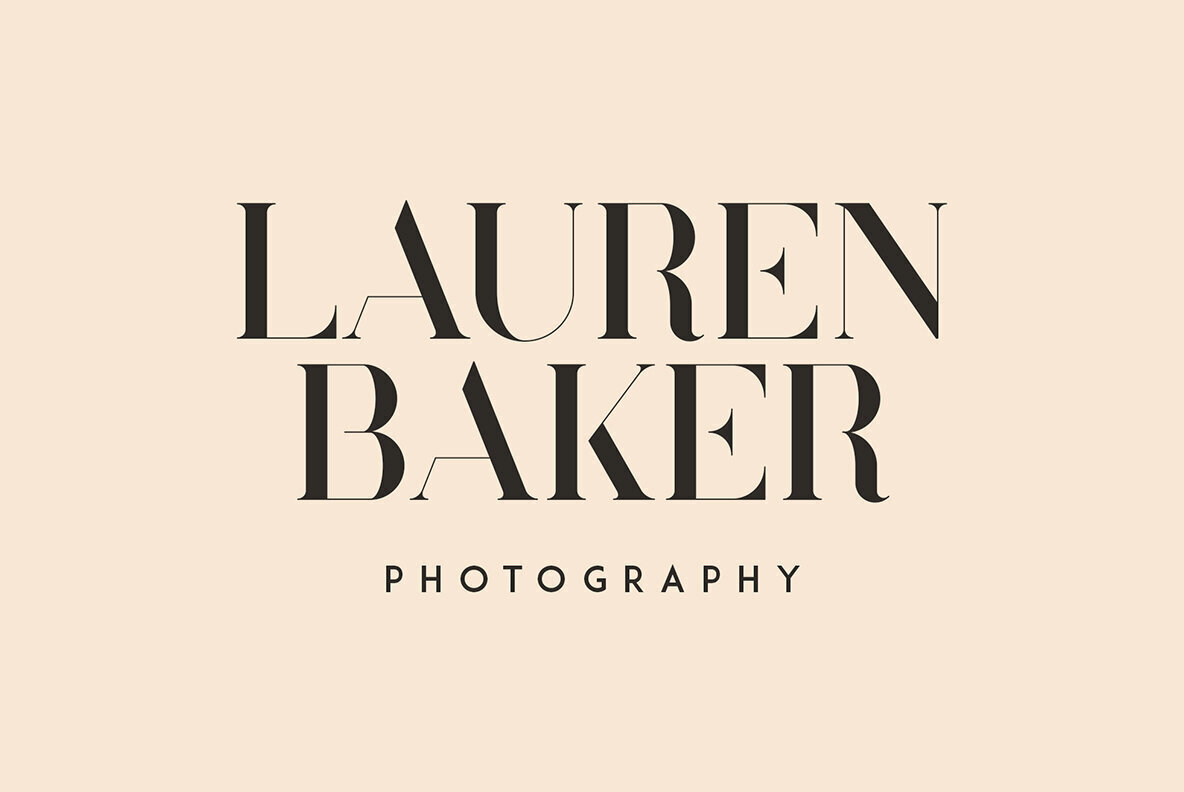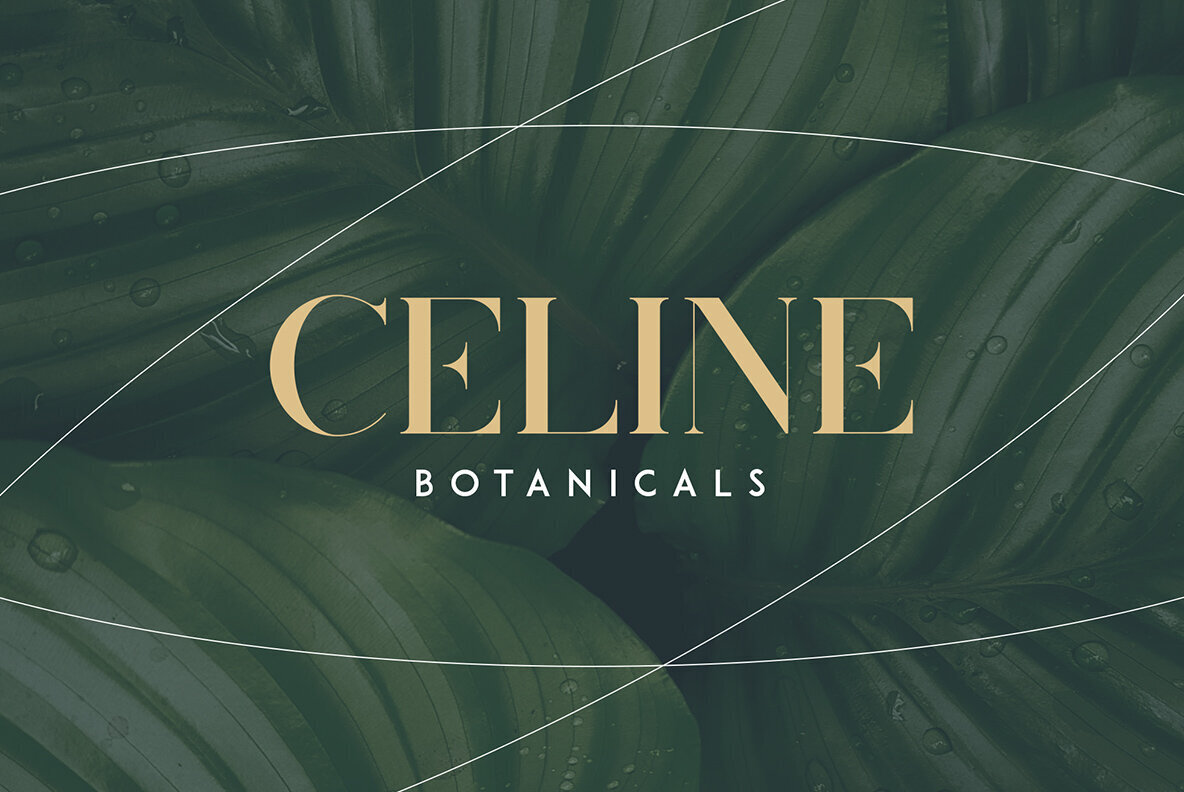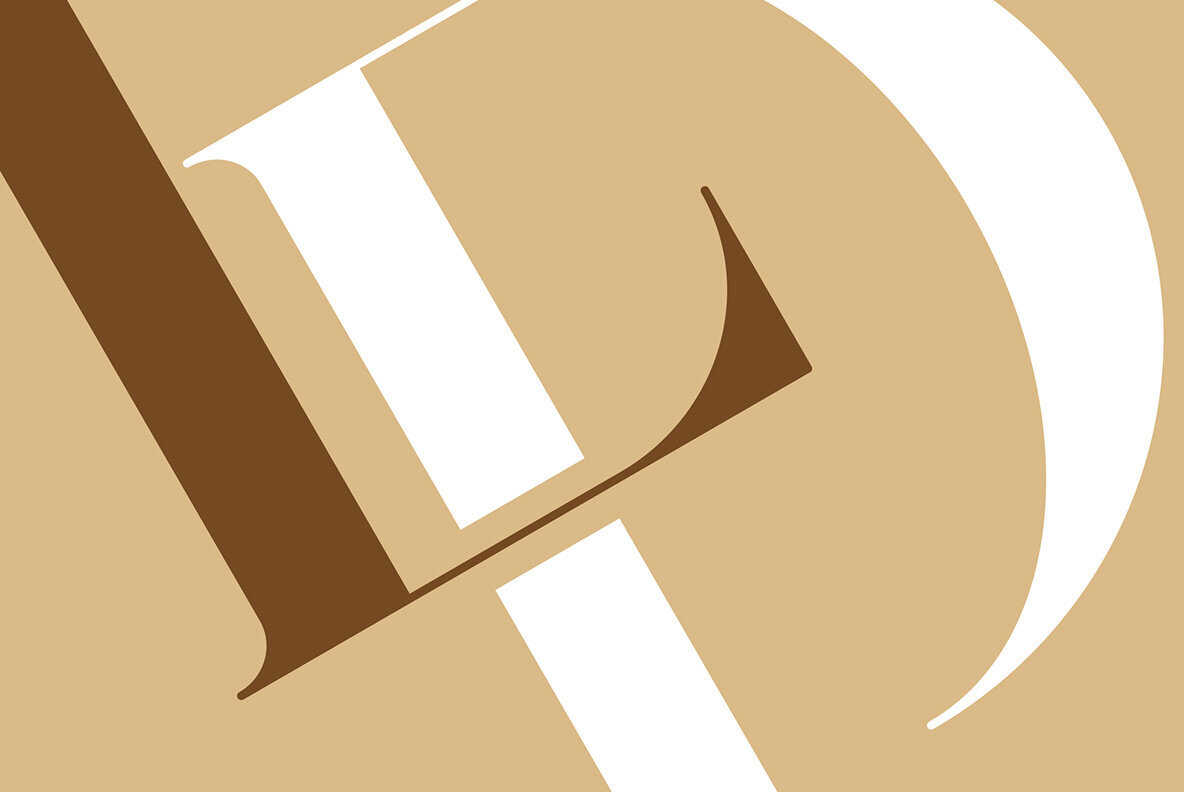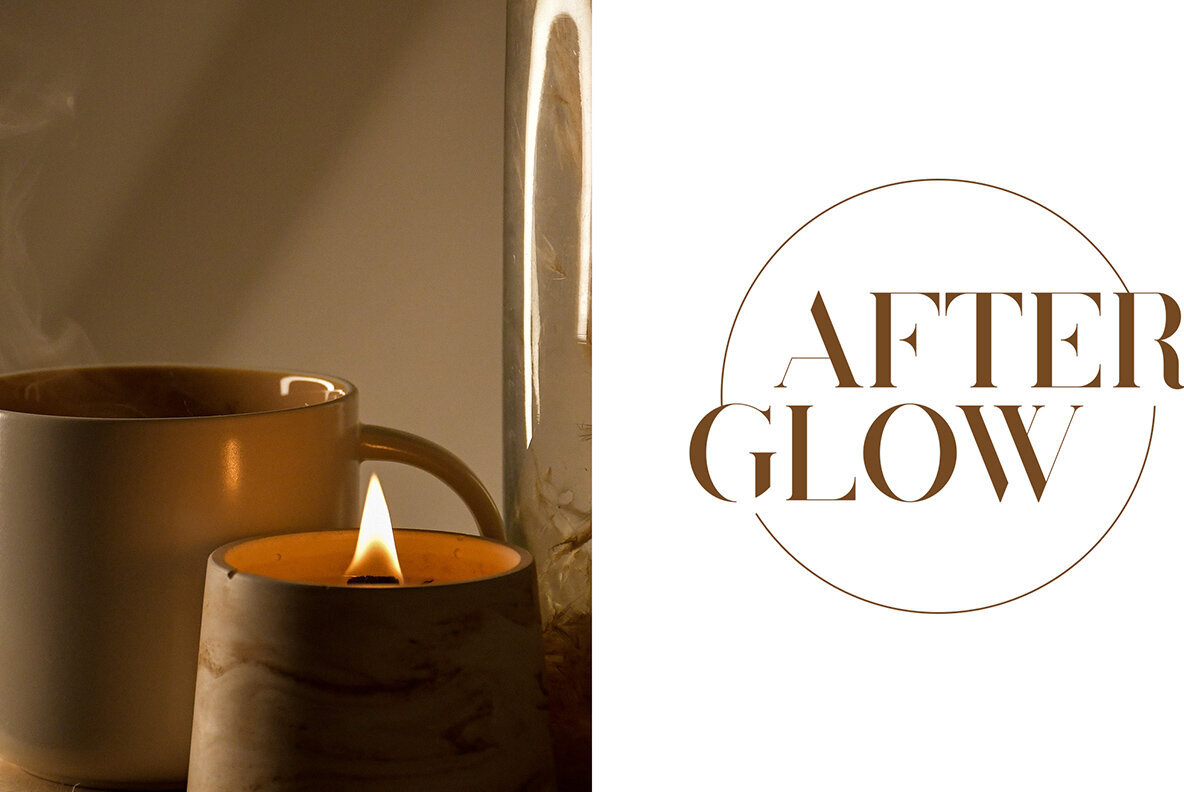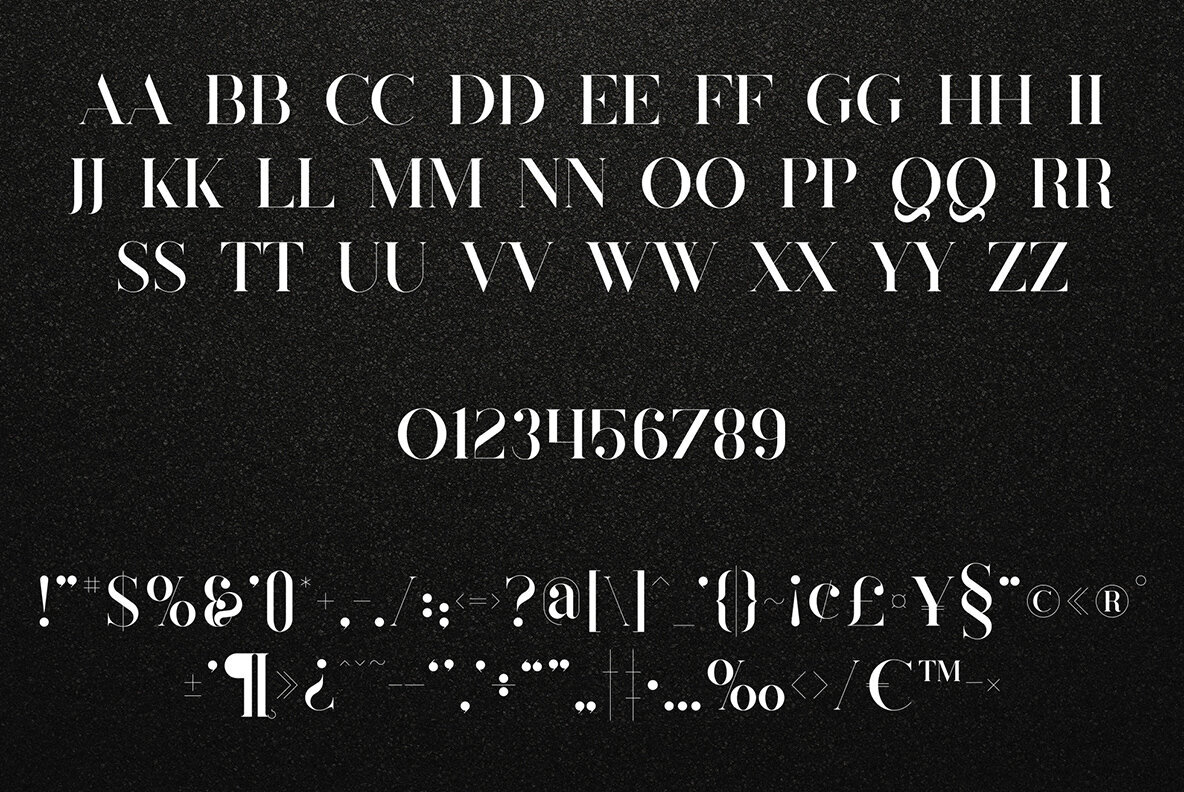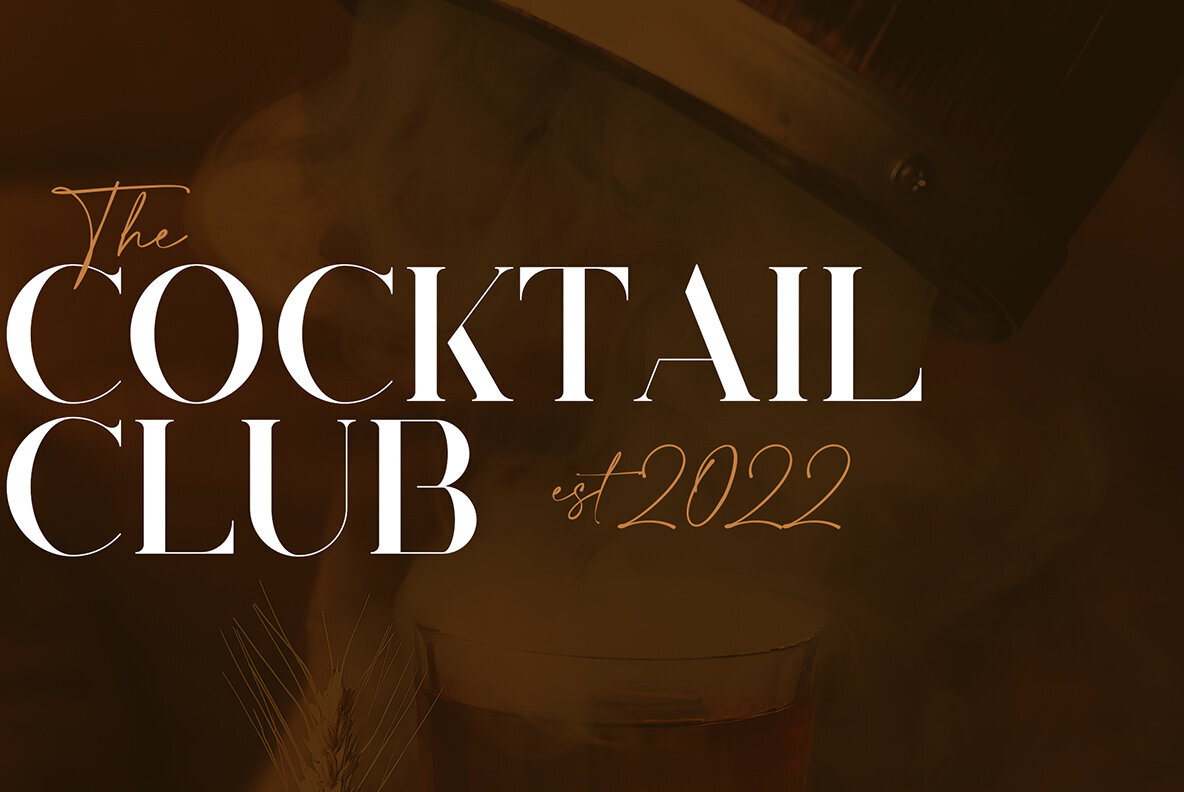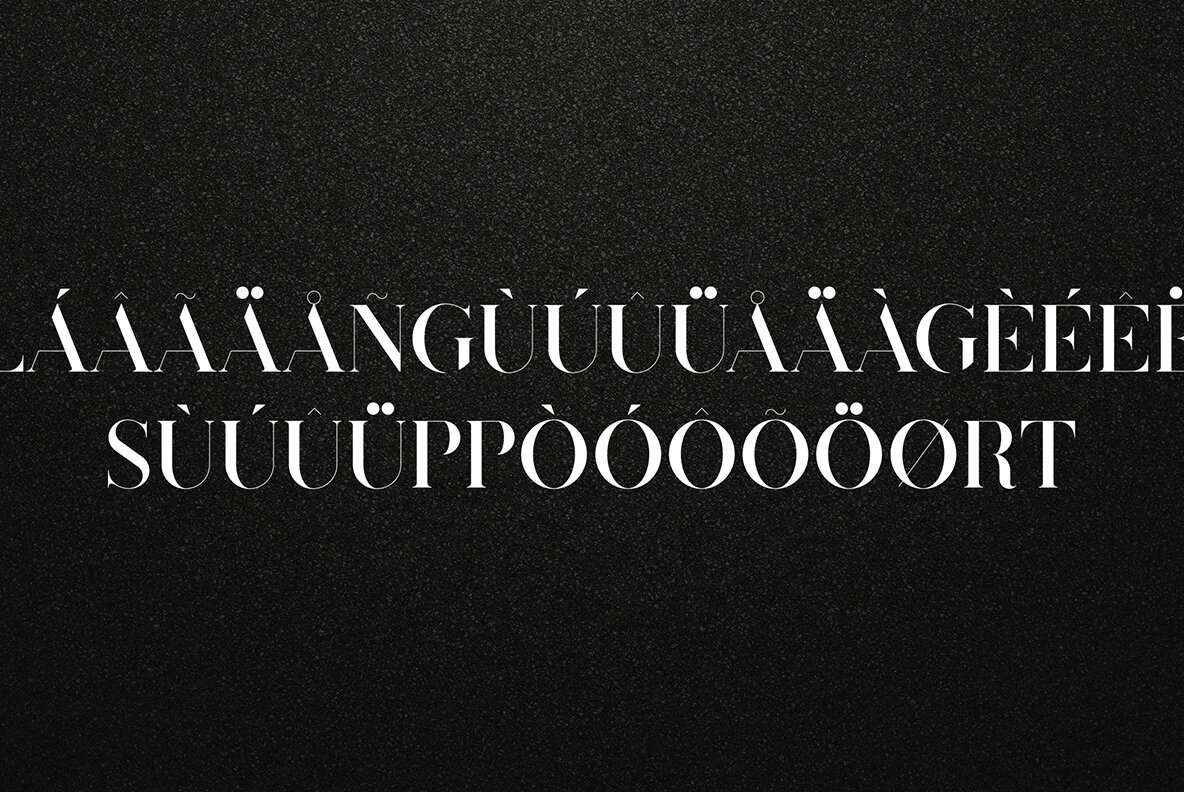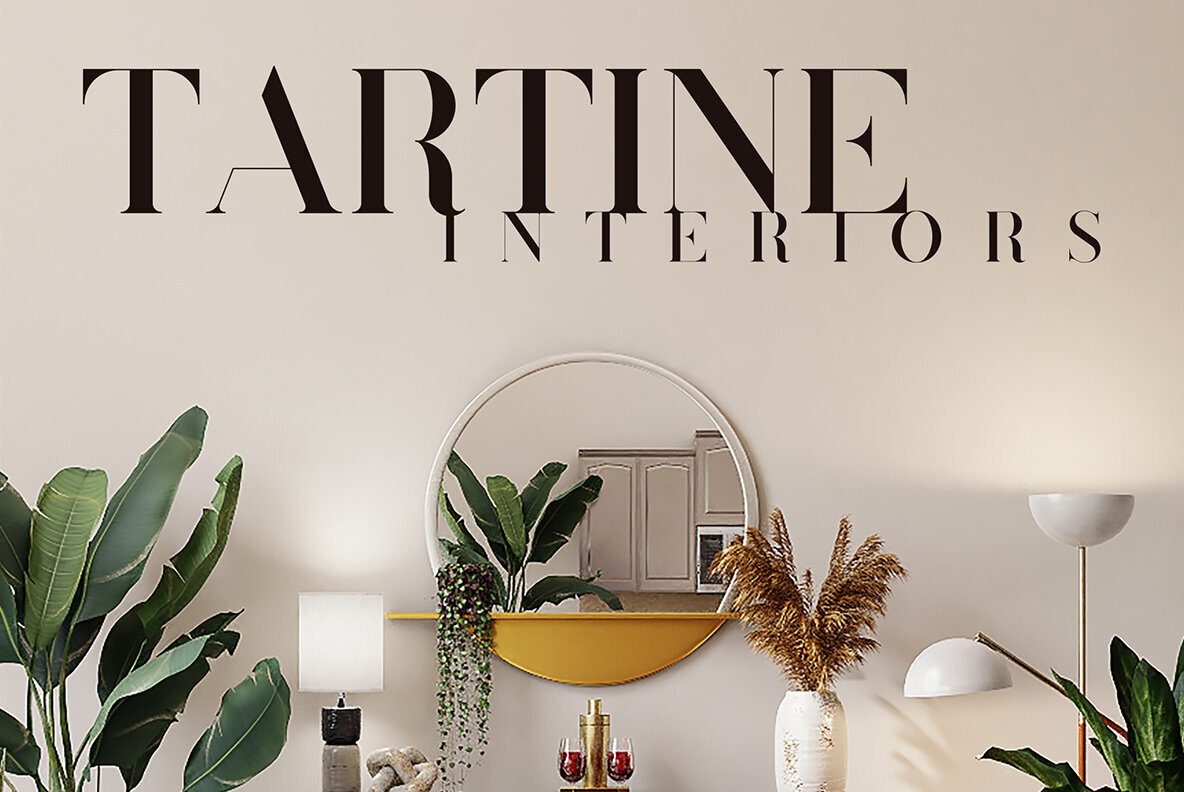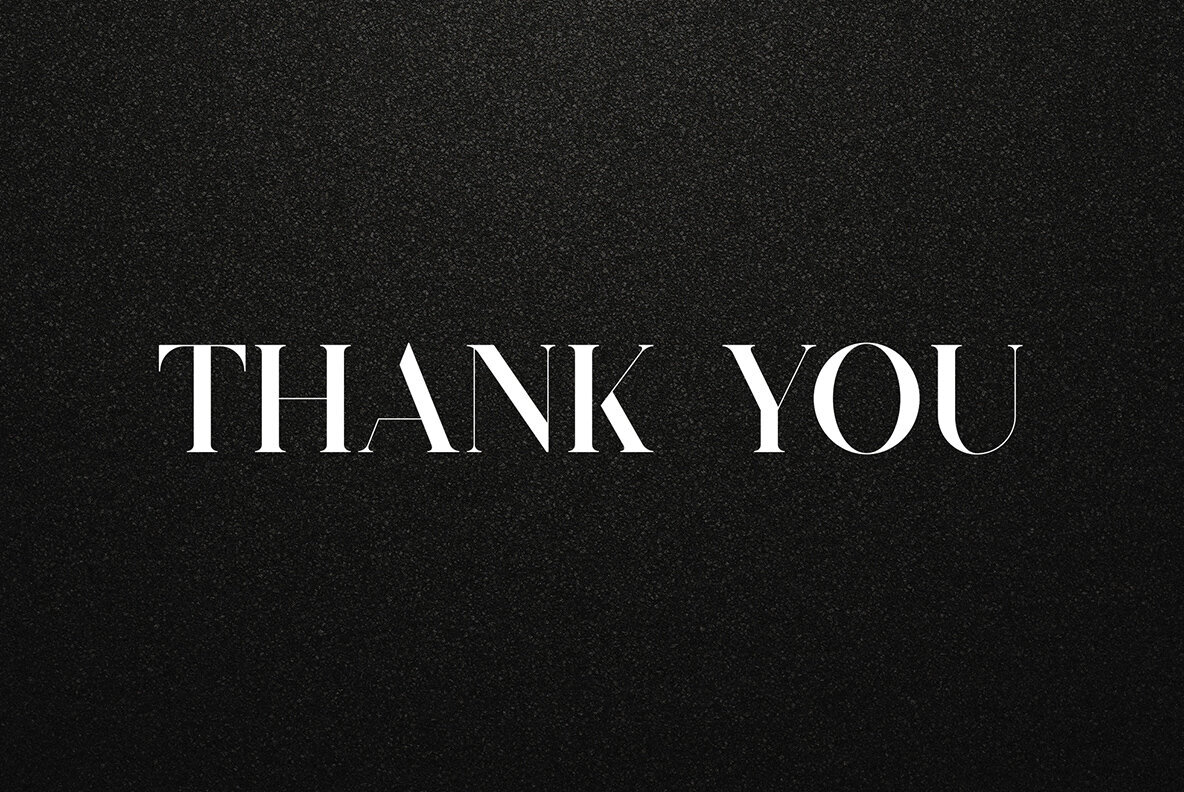
Coterie Font
Coterie by VP Creative Shop offers a refined serif font characterized by elegance and subtlety, with comprehensive multilingual support. This font's versatility extends to both large and small applications, making it a valuable addition to your design toolkit. Well-suited for diverse projects, Coterie thrives in branding, home-ware designs, product packaging, and magazine headers. Its stylish appeal ensures it performs well as a text overlay on any background image.Coterie: An Elegant Serif for Versatile Design